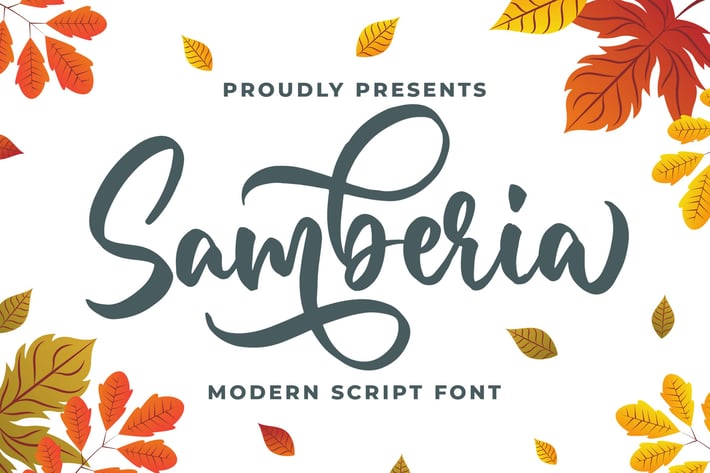
Samberia a Modern Script Font
Introducing of our new product the name is Samberia a Modern Script Font. Samberia inspired by modern calligraphy style this font is a fun theme very good for display, wedding, valentine theme, logotype and etc